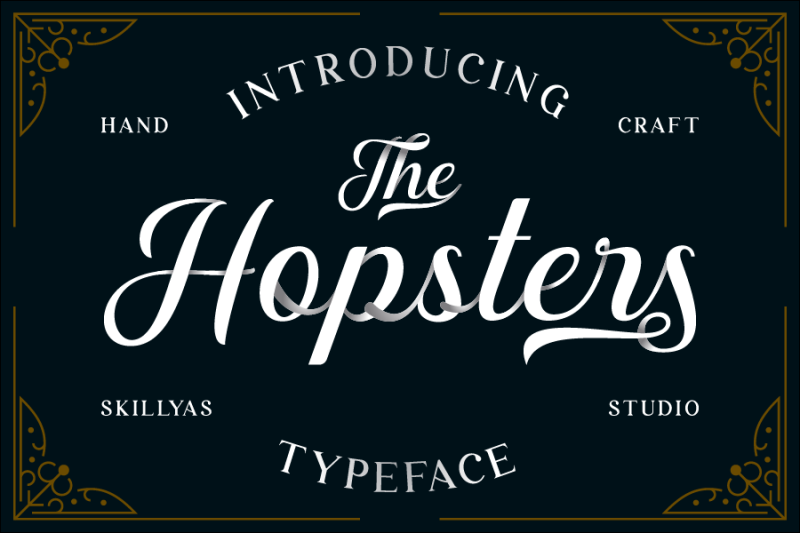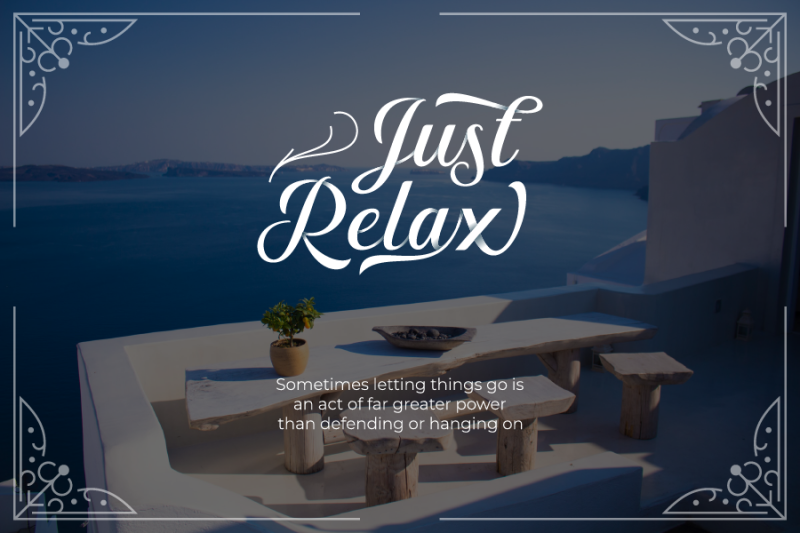
The Hopster is our latest font that we made with care, We do our best to make this font good for you.
It will add a luxury spark to any design project that you wish to create!
This Font is very suitable for beautiful logos, posters, vintage signage, magazine, photography, vintage lettering, and any other design project.
The Hopster Character Set :
- Uppercase & Lowercase Letters
- Punctuation & Symbols Support
- PUA encoded Range Standard Alternative Style
- Standard Ligature
- Multilingual Support